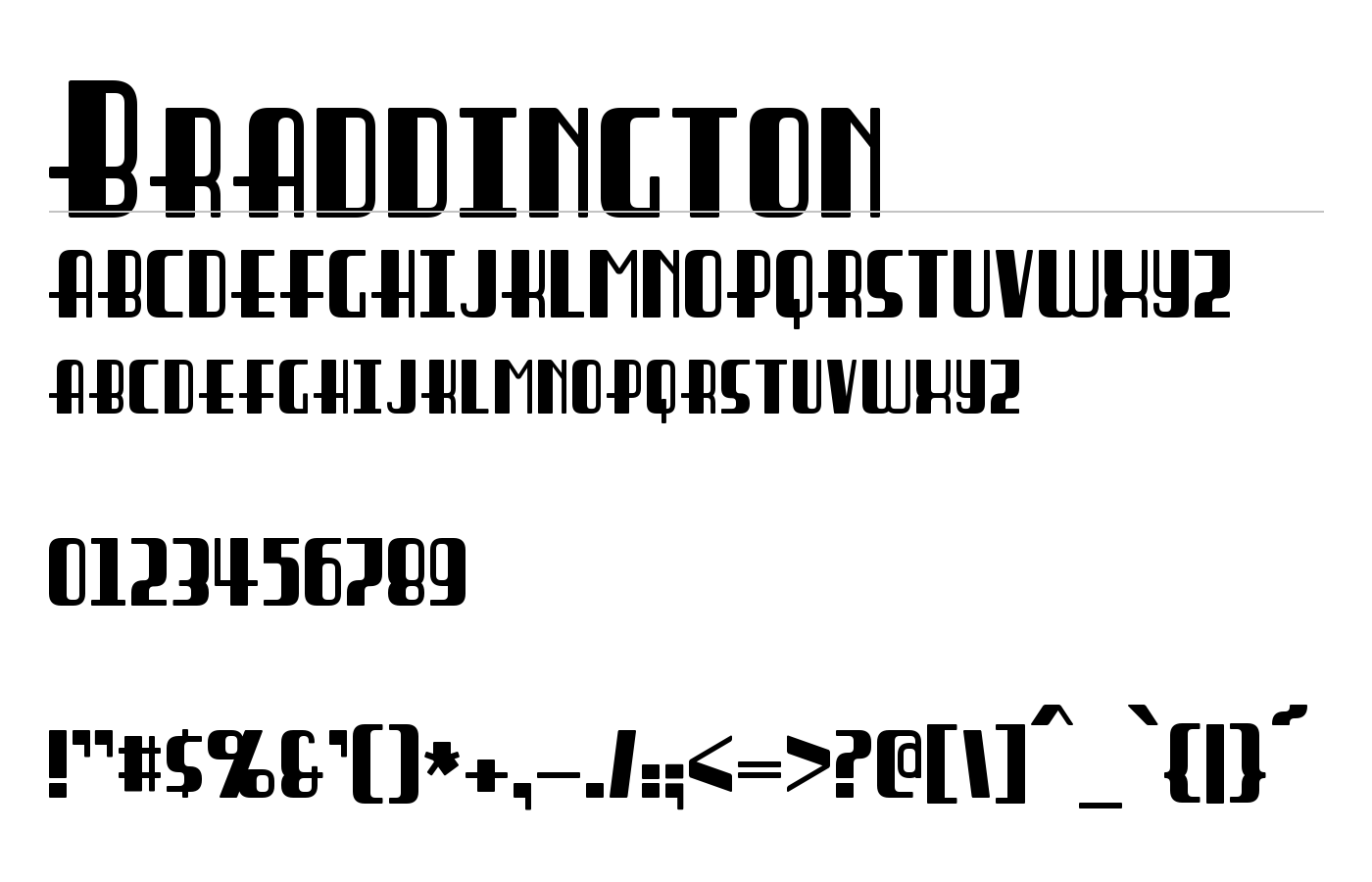
Braddington is a bold, condensed sans serif font with a distinctive geometric style and high contrast between thick and thin strokes. Its rigid, upright letterforms and uniform stroke weight give it a modern, industrial feel that works well for eye-catching headlines, logos, and branding where a strong, contemporary presence is desired. This font is ideal for projects needing a unique, architectural touch that stands out with clarity and impact.
Braddington Font